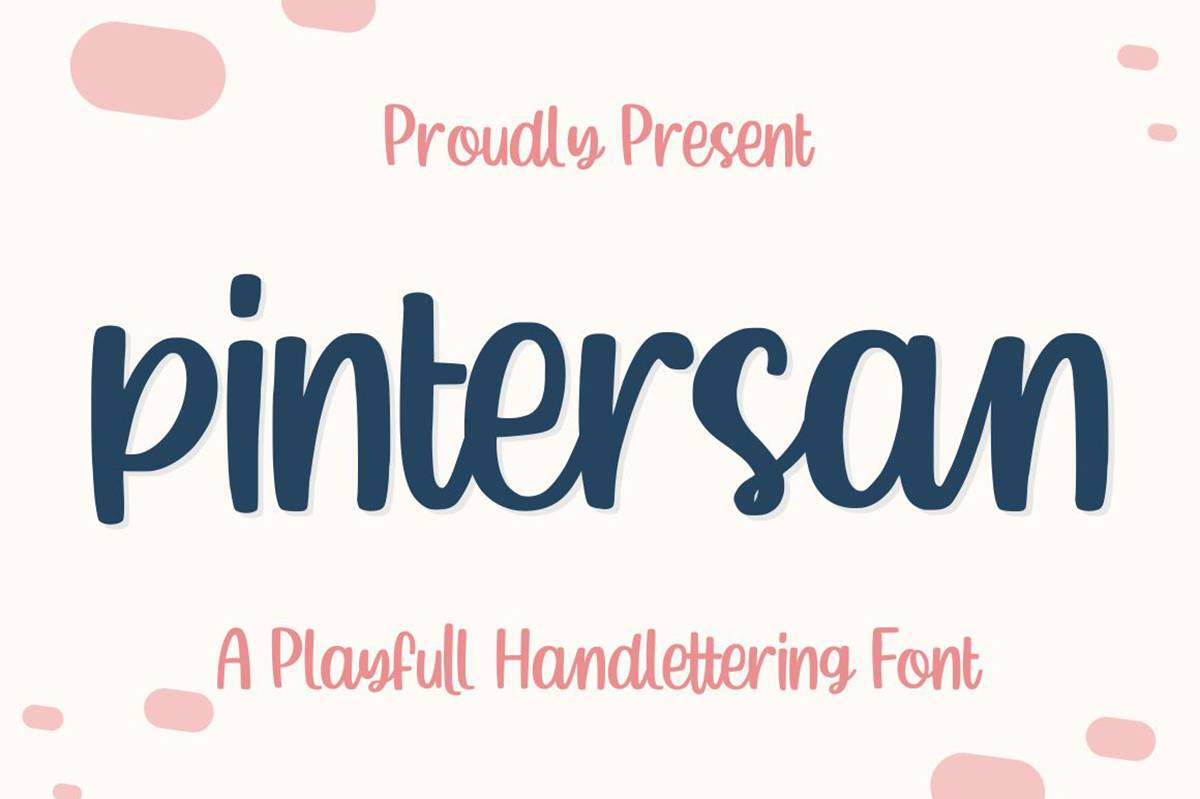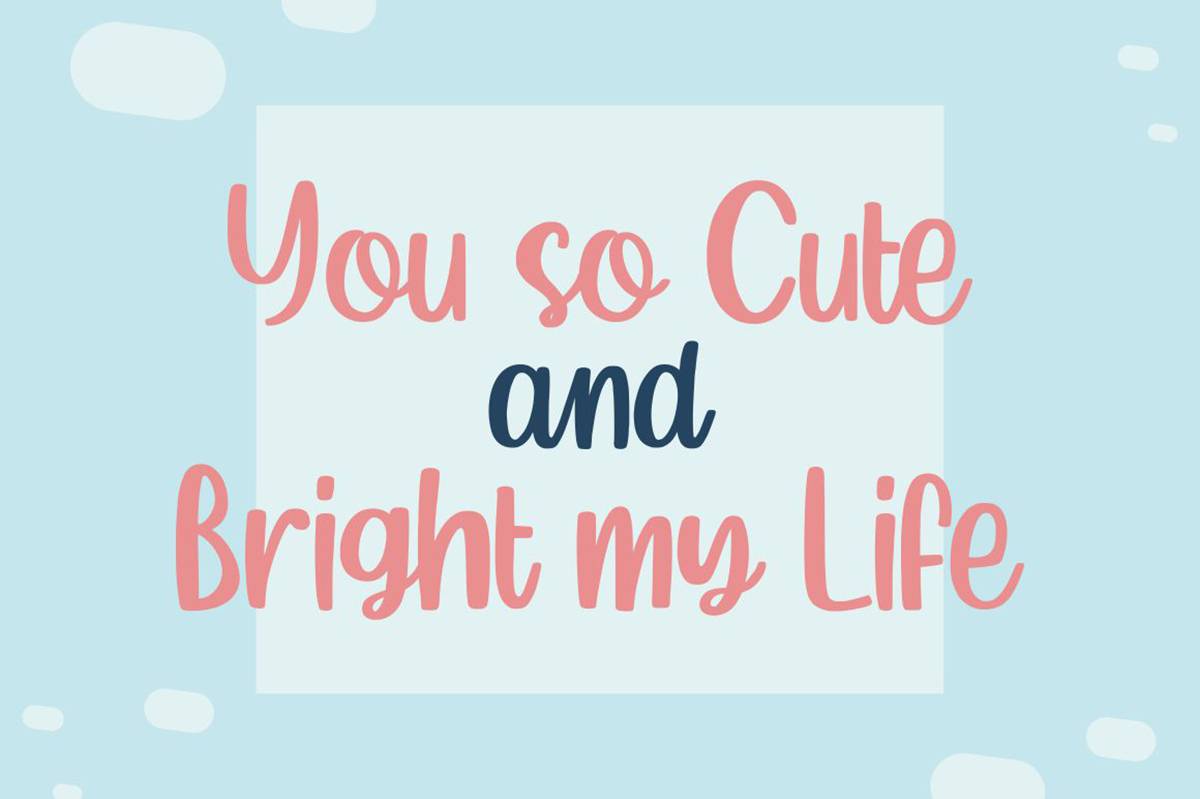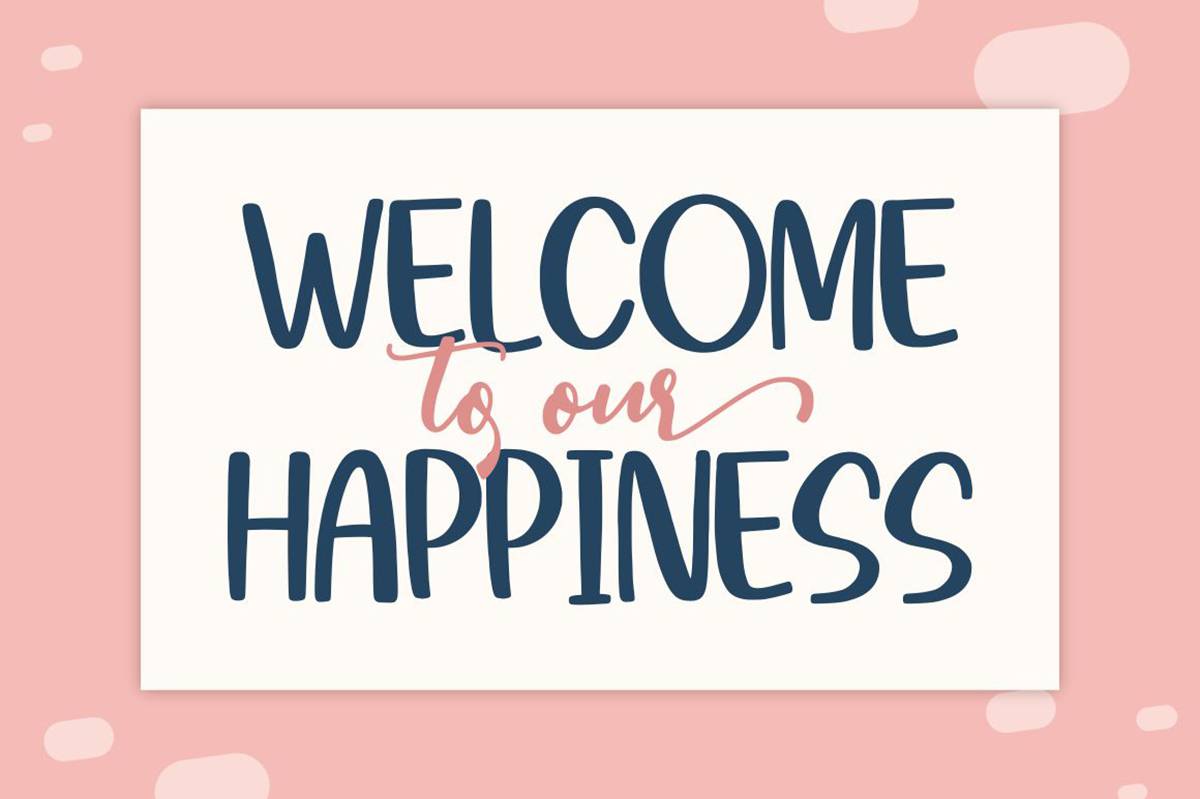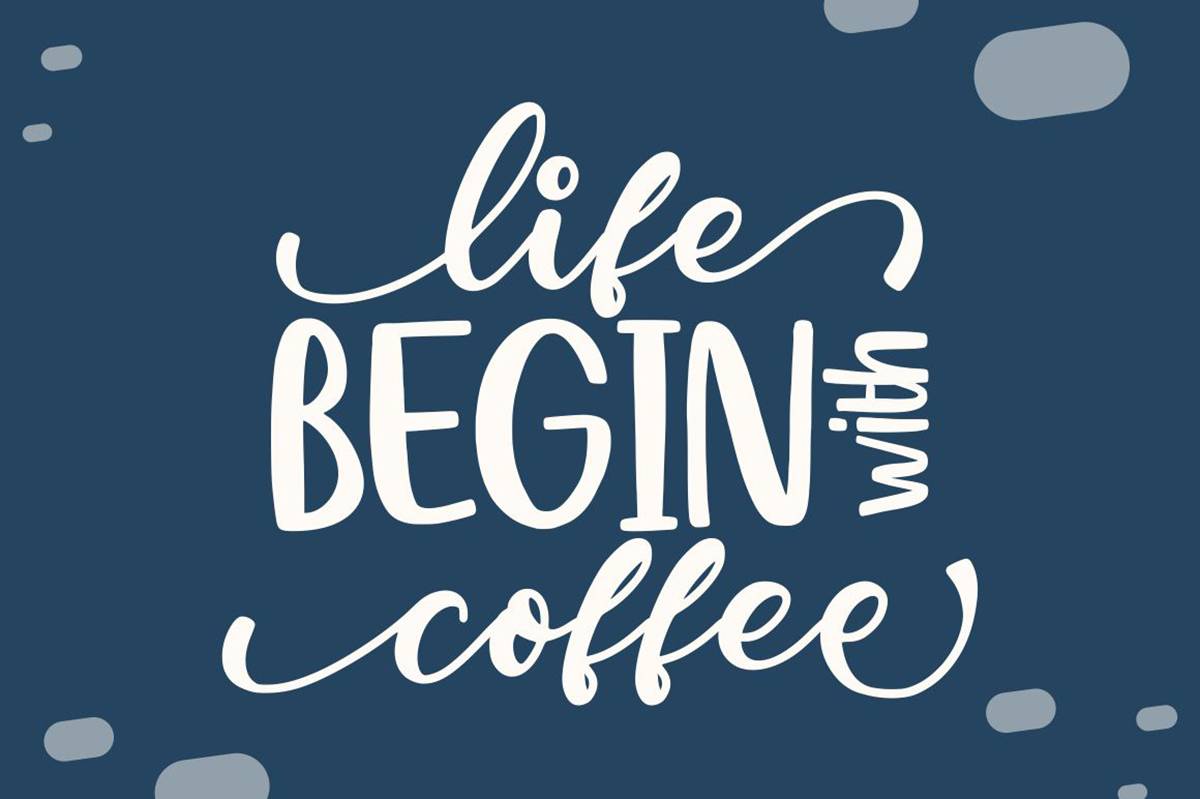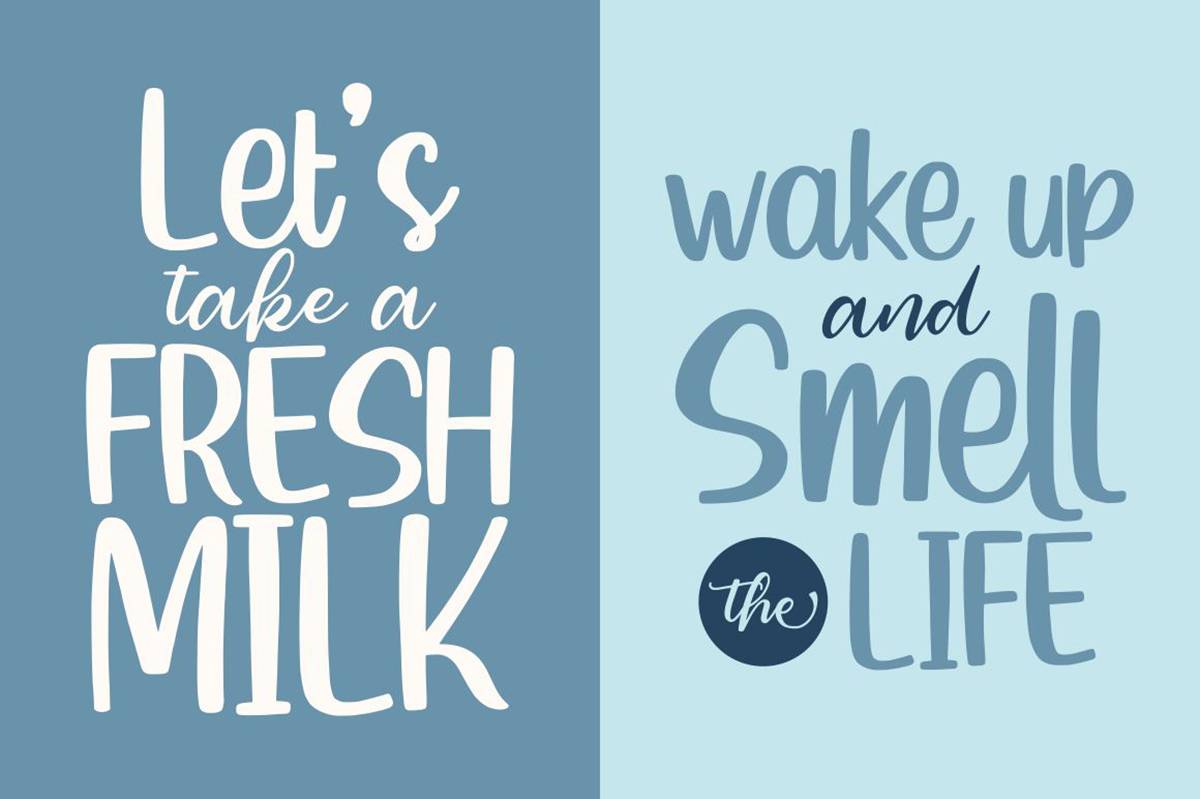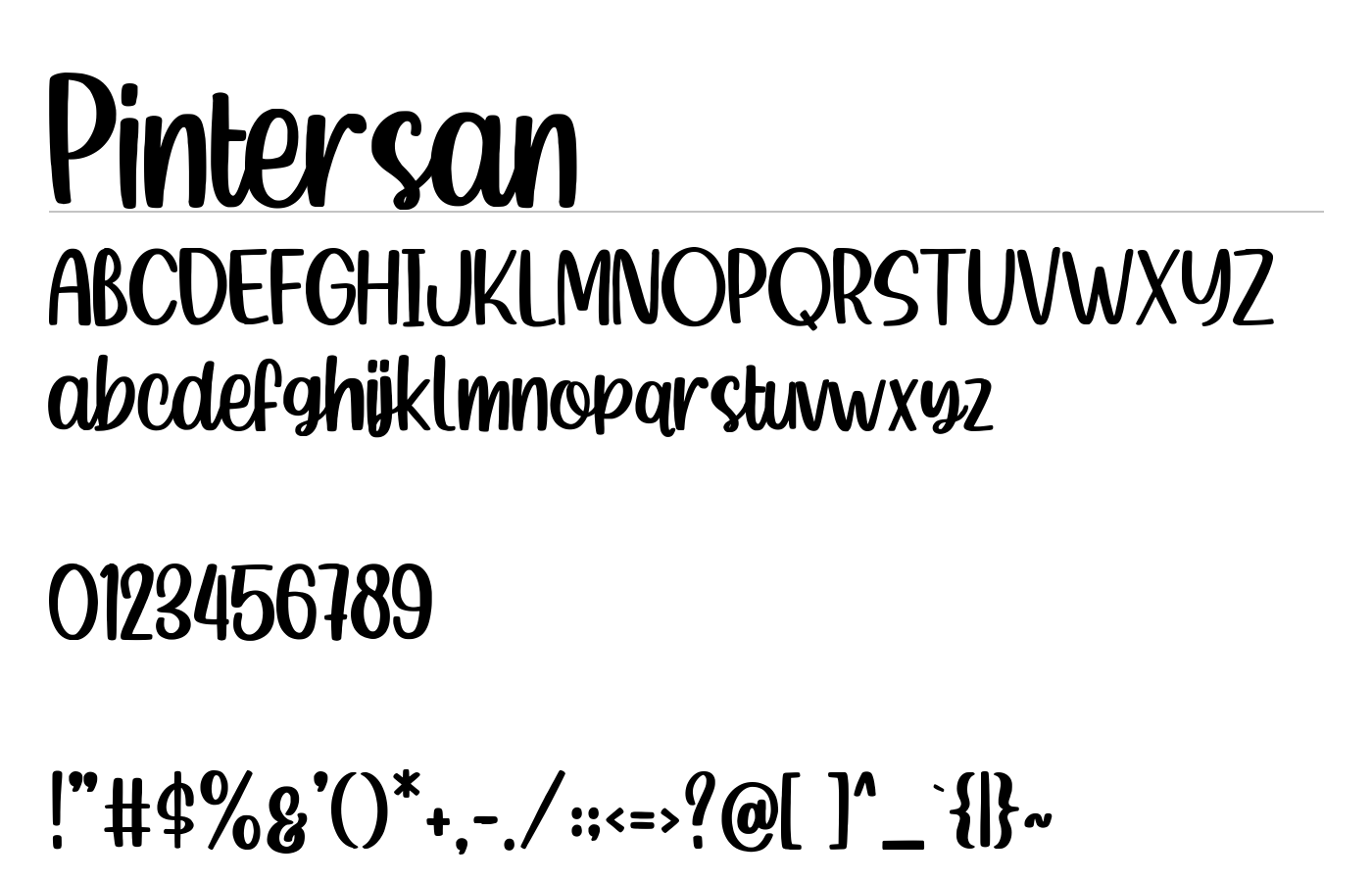
Pintersan is a playful, hand-drawn sans serif font with a casual, friendly vibe. Its tall, slightly irregular letterforms and smooth strokes create an approachable and expressive style, ideal for creative projects, informal branding, or children's content that seeks a warm and inviting look. This font works best in headlines, logos, and packaging where a personal, handcrafted feel is desired.
Pintersan Font
About Pintersan Font
| Font family | Pintersan Font |